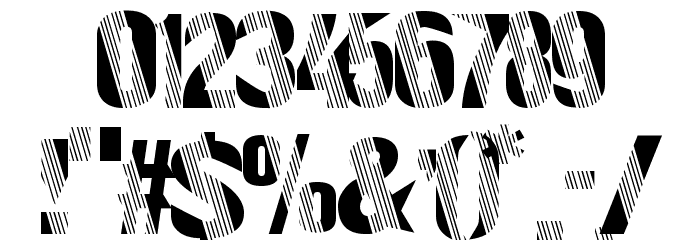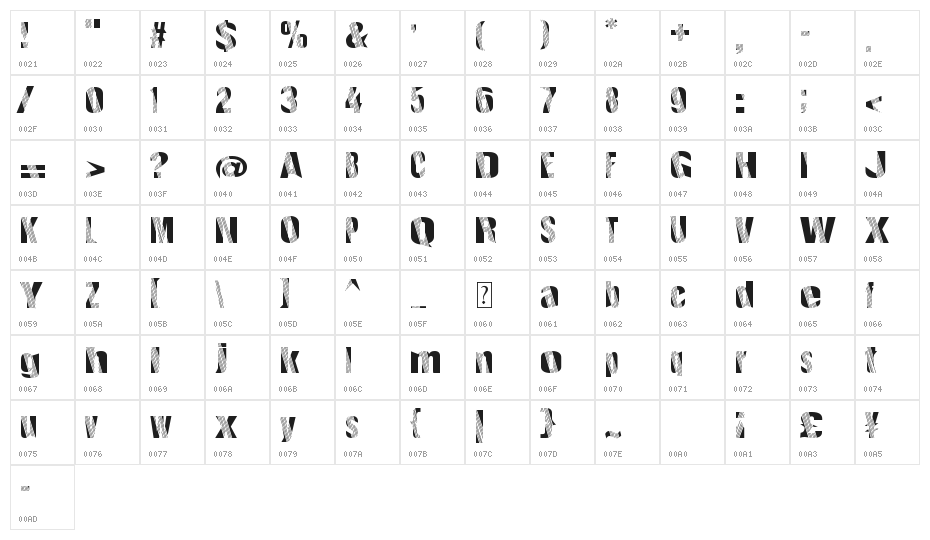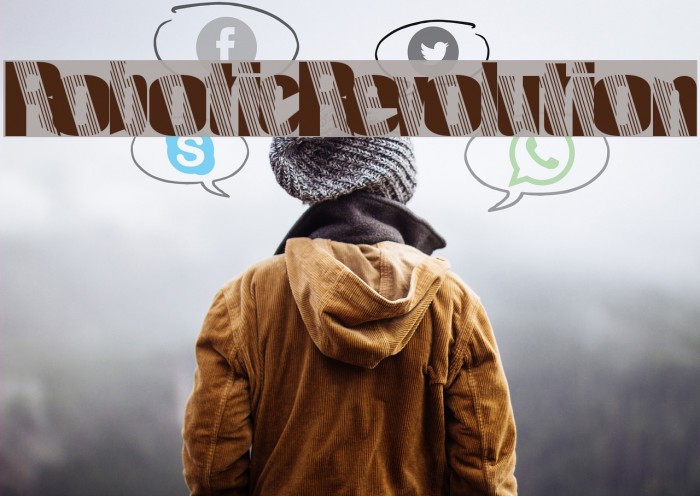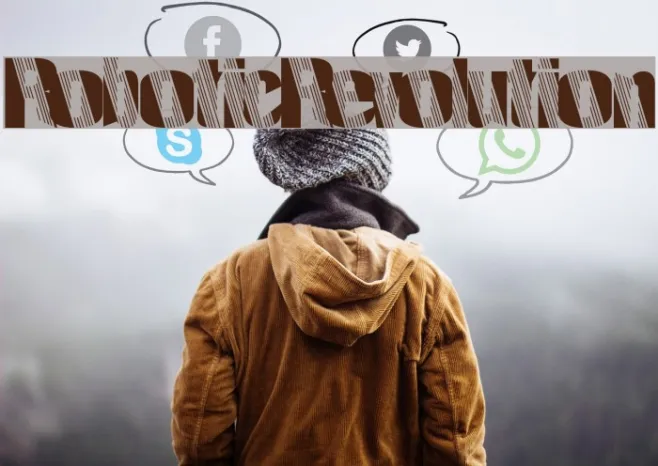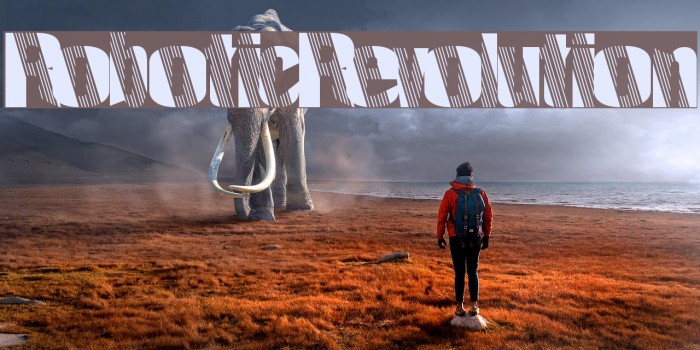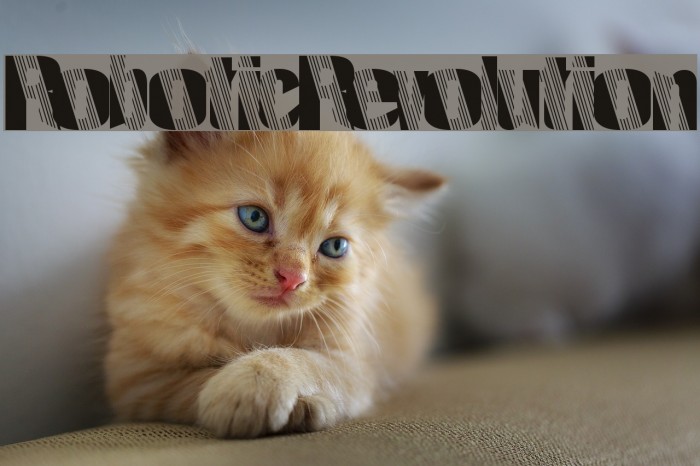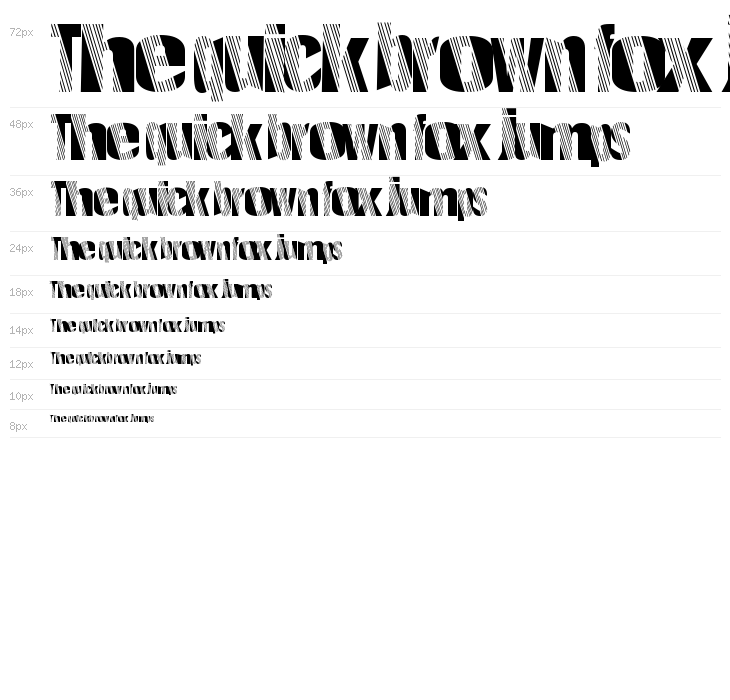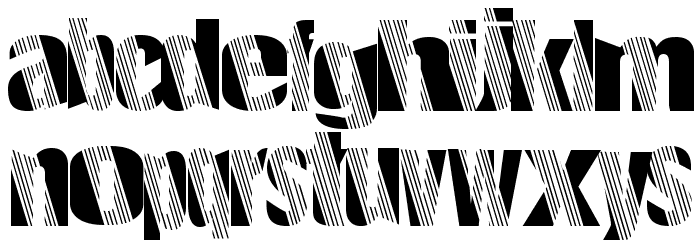
RoboticRevolution Font
RoboticRevolution Description
This font features a bold and striking design with a unique striped pattern running through each character. The letters are uppercase and lowercase, along with numbers and a selection of special characters. The style is highly decorative, making it stand out with its high contrast between the thick black areas and the thin white stripes. This font is ideal for creating eye-catching headlines or logos where a modern and edgy look is desired. The character spacing is relatively tight, which enhances its bold appearance. The overall style is modern and futuristic, perfect for projects that require a strong visual impact.
| Overall Style | Modern, Futuristic |
| Proposed Projects | Ideal for use in headlines, logos, posters, and any design requiring a bold statement. |